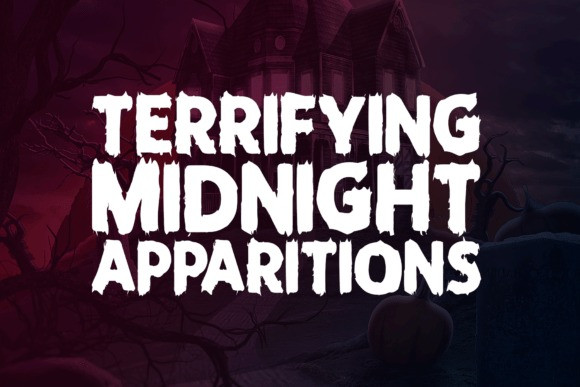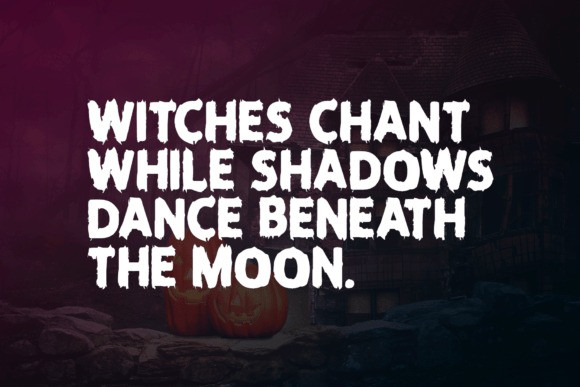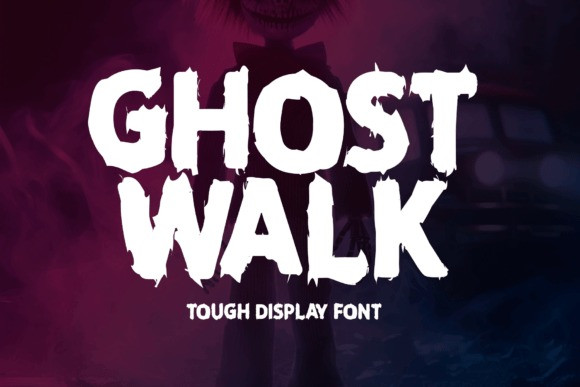
Ghost Walk Font
Ghost Walk Font is a striking and eerie display font that is meant to make an impression. It’s perfect for many creative applications, such as branding and logos, clothing, site headers, flyers, posters, music covers, and related items, thanks to its powerful letterforms and eerie personality. This font adds a strong presence to any layout, whether you’re working on Halloween projects or edgy urban graphics.